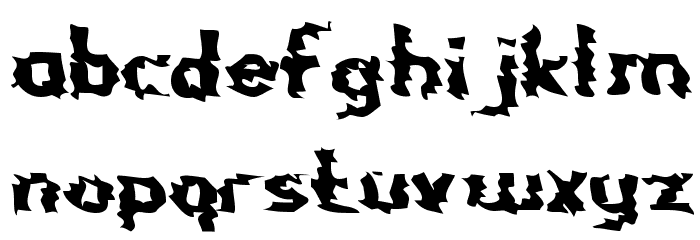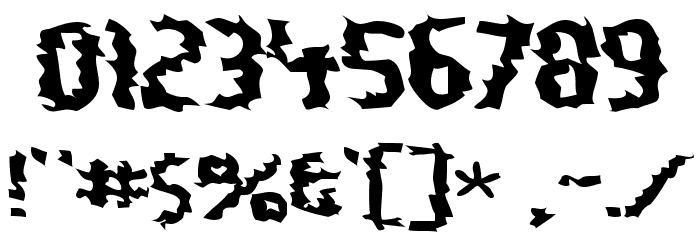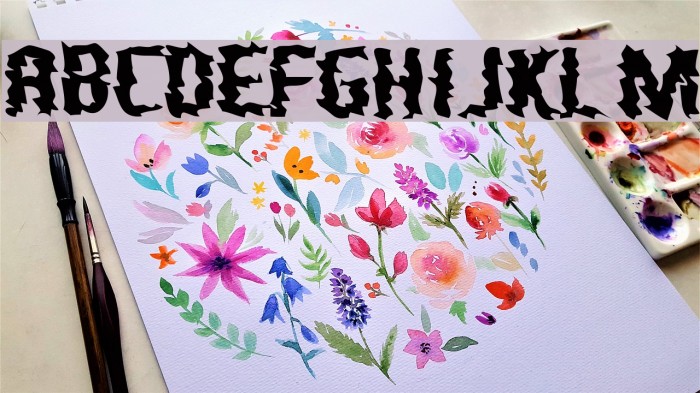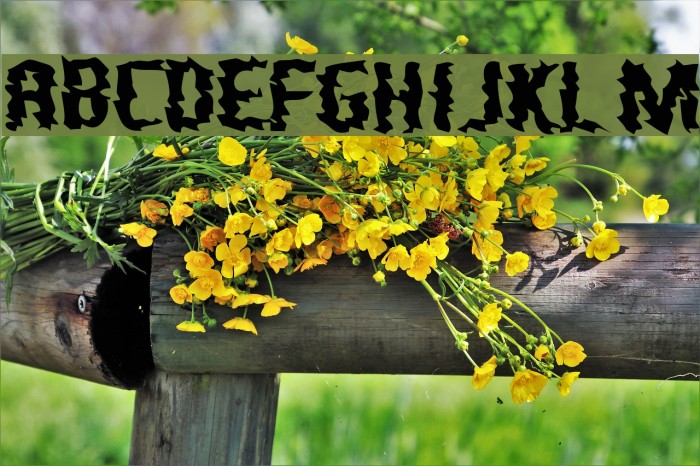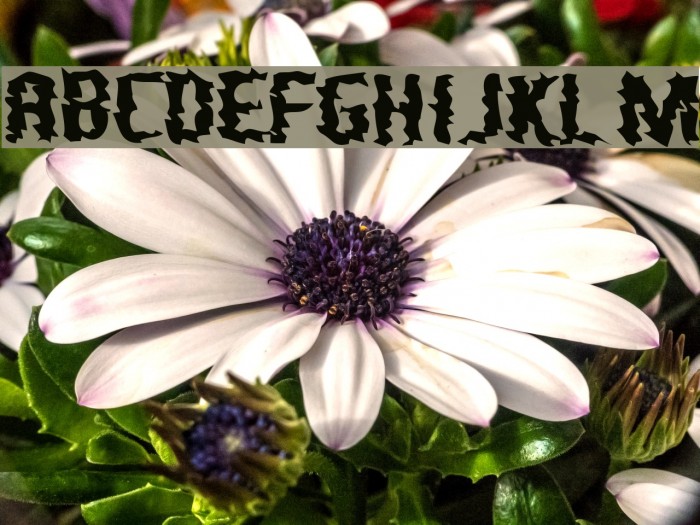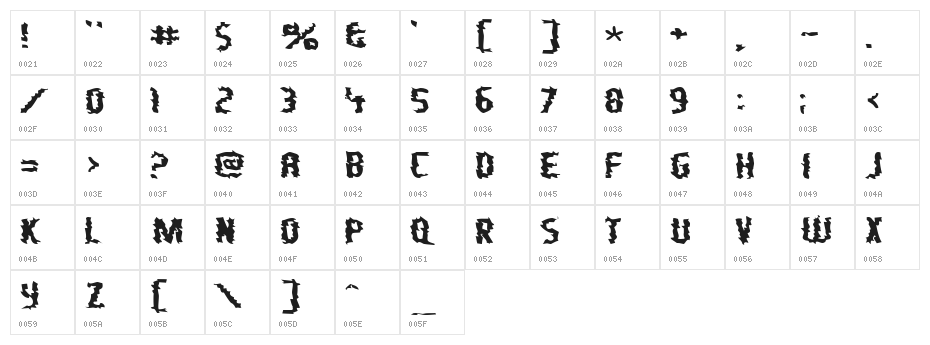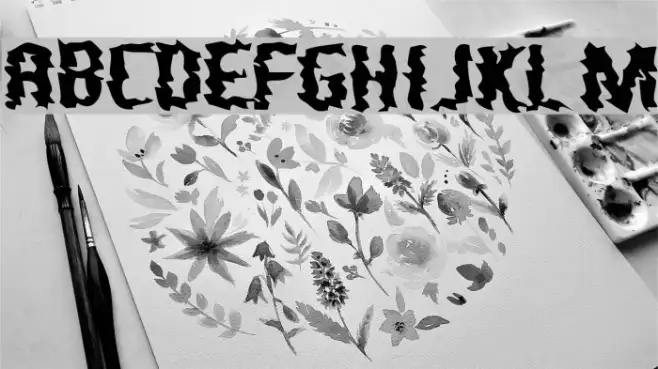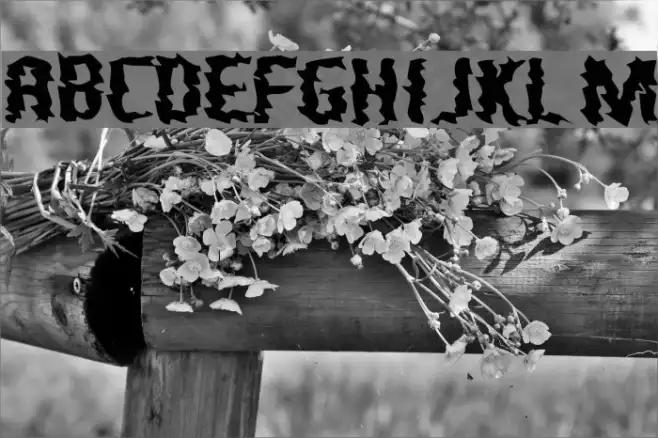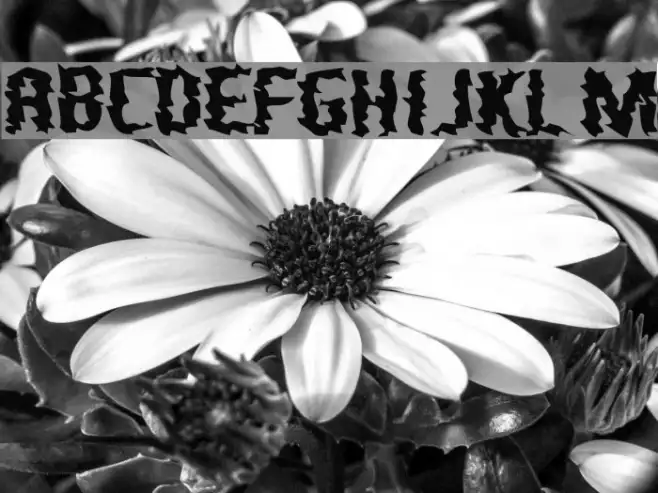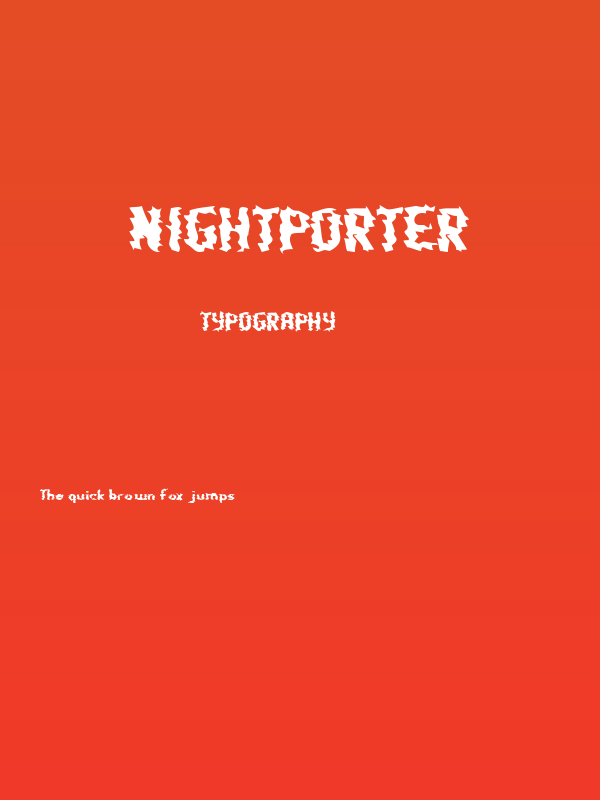
Nightporter Font
This font features a highly decorative and jagged style, reminiscent of torn paper or shattered glass. The characters are bold and irregular, with sharp edges and an uneven baseline, giving it a chaotic yet artistic appearance. The uppercase and lowercase letters maintain a consistent theme, with each character appearing unique due to the irregular shapes. Numbers and special characters follow the same design principles, ensuring a cohesive look across all glyphs. This font is ideal for projects that require a dramatic and eye-catching typeface.
A bold, jagged, and decorative font with a chaotic, artistic style.
- Proposed Projects: Ideal for horror-themed posters, album covers, Halloween invitations, or any project needing a dramatic and edgy typeface.